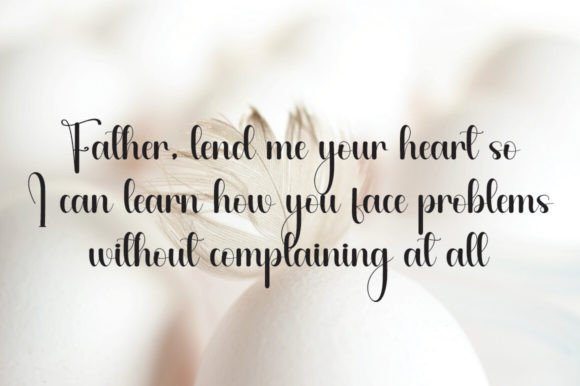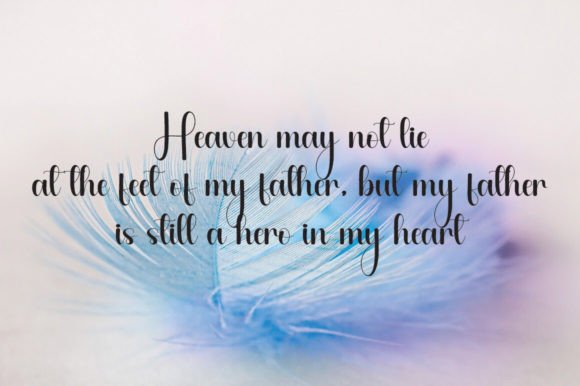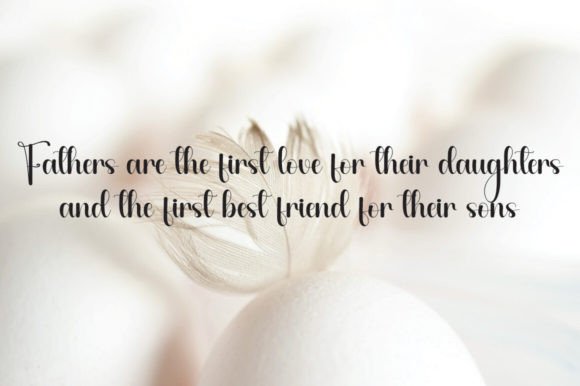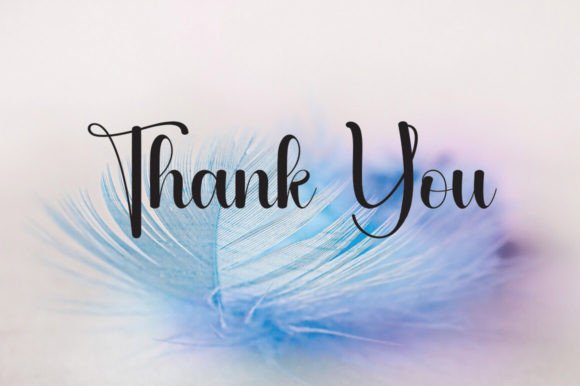
Discover the Charm of Father Chubby Font: Elevate Your Designs with Elegance and Whimsy
Are you on the hunt for a font that embodies the perfect blend of elegance, refinement, and playfulness? Look no further than the delightful “Father Chubby” font. This sumptuously flowing handwritten typeface is sure to capture your heart with its gentle stylization and charming curves. In this article, we’ll dive into the world of Father Chubby, exploring its unique characteristics, uses, and benefits for designers and crafters alike.
The Essence of Father Chubby Font
At its core, Father Chubby is a beautifully crafted handwritten font that exudes sophistication and romance. Its gentle, flowing curves dance effortlessly across any creative canvas, infusing a sense of warmth and personality into every design venture. Whether you’re working on a sophisticated arrangement or a playful project, this cursive gem is the perfect companion to bring your ideas to life.
One of the standout features of Father Chubby is its unique ability to balance elegance with a jovial, romantic charm. This font is not just a means of communication; it’s an expression of emotion, a way to connect with your audience on a personal level. With Father Chubby, you can add a touch of whimsy to your designs, making them more engaging, memorable, and impactful.
Perfect for a Variety of Design Ventures
The versatility of Father Chubby font is one of its most appealing qualities. This font is suitable for a wide range of design projects, from intimate correspondences to large-scale creative endeavors. Here are just a few examples of how you can use Father Chubby to elevate your designs:
- Wedding Invitations and Stationery: Add a touch of romance and sophistication to your wedding invitations, save-the-date cards, and other stationery with Father Chubby.
- Branding and Packaging: Use Father Chubby to create unique and eye-catching brand identities, product labels, and packaging designs that stand out from the crowd.
- Digital and Print Media: Whether you’re working on a blog, magazine, or advertising campaign, Father Chubby can add a touch of elegance and personality to your typography.
- DIY Projects and Crafts: Perfect for crafters, Father Chubby can be used to add a personal touch to handmade cards, scrapbooking, and other DIY projects.
Why Choose Father Chubby Font?
With so many fonts available, why choose Father Chubby for your design projects? Here are just a few reasons why this font stands out from the rest:
- Unique and Memorable: Father Chubby’s distinctive curves and flowing lines make it a one-of-a-kind font that will leave a lasting impression on your audience.
- Elegant and Refined: This font exudes sophistication and refinement, making it perfect for high-end designs and luxury brands.
- Versatile and Adaptable: Father Chubby can be used in a variety of design contexts, from digital media to print materials.
- Easy to Read and Understand: Despite its elegant and refined appearance, Father Chubby is surprisingly easy to read, making it perfect for body text and longer design projects.
Tips for Using Father Chubby Font Effectively
To get the most out of Father Chubby font, here are a few tips to keep in mind:
- Use it Sparingly: While Father Chubby is a beautiful font, it’s best used sparingly to avoid overwhelming the reader. Use it for headings, titles, or key messages to add emphasis and visual interest.
- Pair it with Other Fonts: Experiment with pairing Father Chubby with other fonts to create a unique and visually appealing typography scheme.
- Adjust the Size and Color: Play around with different sizes and colors to find the perfect combination that suits your design project.
In conclusion, Father Chubby font is a true gem that offers a unique blend of elegance, refinement, and playfulness. Whether you’re a designer, crafter, or simply someone looking to add a personal touch to your creative projects, this font is sure to delight. With its gentle curves, charming appearance, and versatility, Father Chubby is the perfect confidante to help you express every word with a sweet flair and inviting warmth.